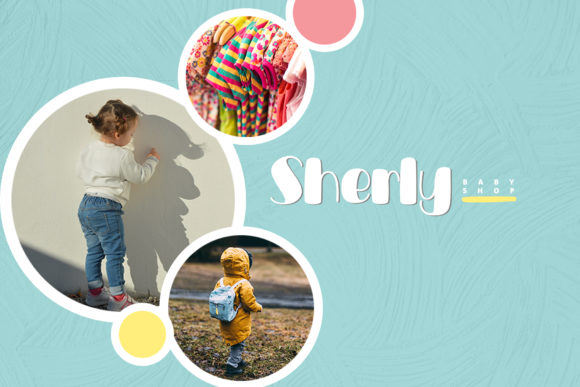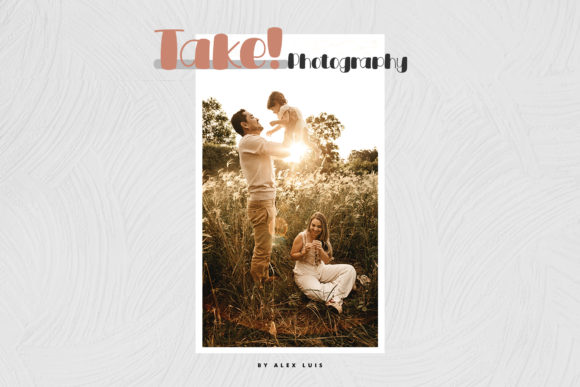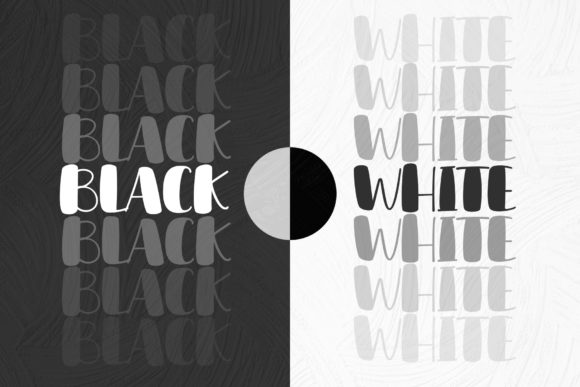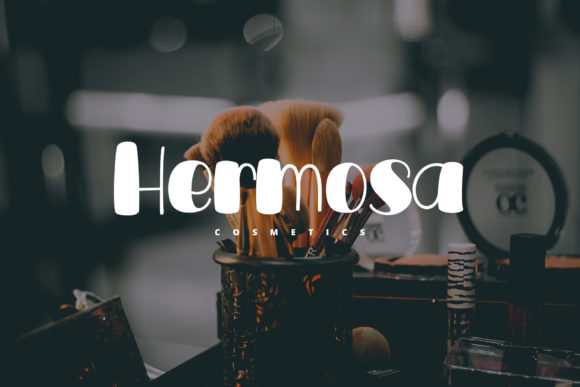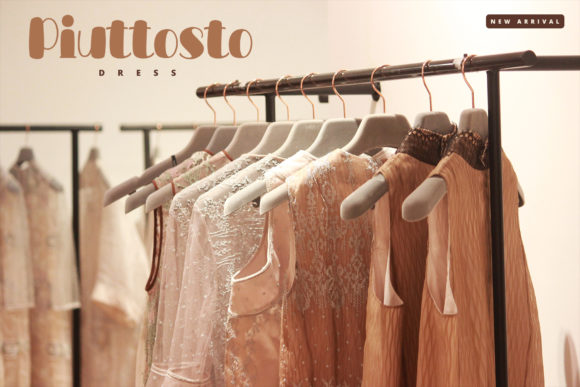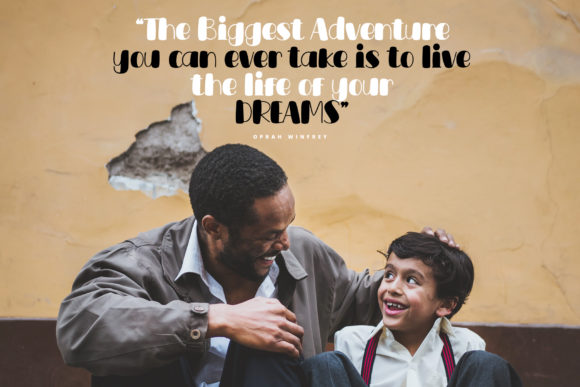
Introducing De Lumary Font: The Ultimate Display Font for Modern Designs
In the world of typography, fonts play a crucial role in making or breaking a design. A well-chosen font can elevate your project, making it more engaging, readable, and visually appealing. If you’re a designer or crafter looking for a fresh and unique display font, look no further than De Lumary Font. This bold, cute, firm, and trendy font is perfect for adding a contemporary feel to any design.
What is De Lumary Font?
De Lumary Font is a display font that boasts a distinctive and eye-catching style. Its bold and firm structure makes it perfect for headlines, titles, and short texts, while its cute and trendy vibe adds a touch of playfulness to any design. Whether you’re working on a branding project, a poster, or a social media graphic, De Lumary Font is sure to make a statement.
Key Features of De Lumary Font
- Bold and Firm Structure: De Lumary Font features a sturdy and robust design that commands attention.
- Cute and Trendy Style: The font’s playful and modern vibe makes it perfect for designs that require a youthful and energetic feel.
- Unique and Fresh Design: De Lumary Font’s distinctive style sets it apart from other fonts, making it a great choice for designers looking for something new and exciting.
- Contemporary Feel: This font is designed to give your designs a modern and contemporary feel that’s sure to impress.
Why Choose De Lumary Font?
With so many fonts available, why choose De Lumary Font? Here are just a few reasons why designers and crafters love this font:
- Versatility: De Lumary Font can be used for a wide range of design projects, from branding and advertising to packaging and digital media.
- Readability: Despite its bold and playful style, De Lumary Font remains highly readable, making it perfect for short texts and headlines.
- Customization: The font’s unique design allows for endless customization options, so you can tailor it to fit your project’s specific needs.
How to Use De Lumary Font
De Lumary Font is perfect for a variety of design projects, including:
- Branding and Logo Design: Use De Lumary Font to create a bold and memorable logo that sets your brand apart.
- Posters and Flyers: Add a touch of playfulness to your posters and flyers with De Lumary Font’s cute and trendy style.
- Social Media Graphics: Make your social media graphics stand out with De Lumary Font’s bold and eye-catching design.
- Packaging Design: Use De Lumary Font to add a modern and contemporary feel to your packaging designs.
Tips and Tricks for Using De Lumary Font
To get the most out of De Lumary Font, here are a few tips and tricks to keep in mind:
- Pair it with a Sans-Serif Font: De Lumary Font pairs perfectly with sans-serif fonts, creating a balanced and harmonious design.
- Experiment with Colors: De Lumary Font looks great in bold and bright colors, so don’t be afraid to experiment and find the perfect hue for your design.
- Use it for Headlines and Titles: De Lumary Font is perfect for headlines and titles, so use it to add a touch of drama and emphasis to your design.
De Lumary Font is a fresh, unique, and funny display font that’s perfect for designers and crafters looking to add a contemporary feel to their designs. With its bold, cute, firm, and trendy style, this font is sure to make a statement. Whether you’re working on a branding project, a poster, or a social media graphic, De Lumary Font is the perfect choice. So why wait? Download De Lumary Font today and take your designs to the next level!